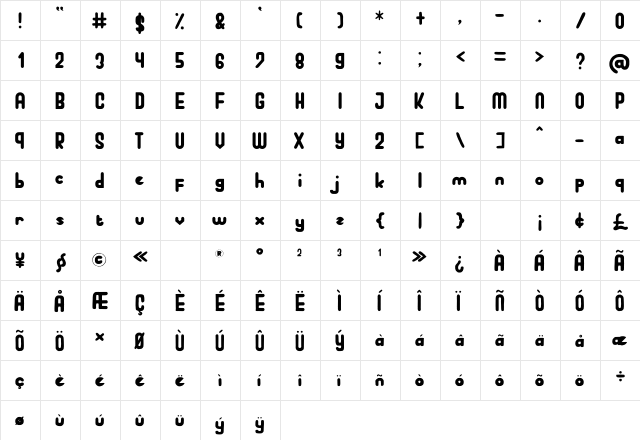
Perky Dream Regular
Regular ·  Alpaprana Studio ·
DesignerAlpaprana Studio
Design Context for Perky Dream Typeface
Perky Dream takes a measured approach to typography — its balanced proportions and neutral character make it a reliable workhorse for both digital and print work.